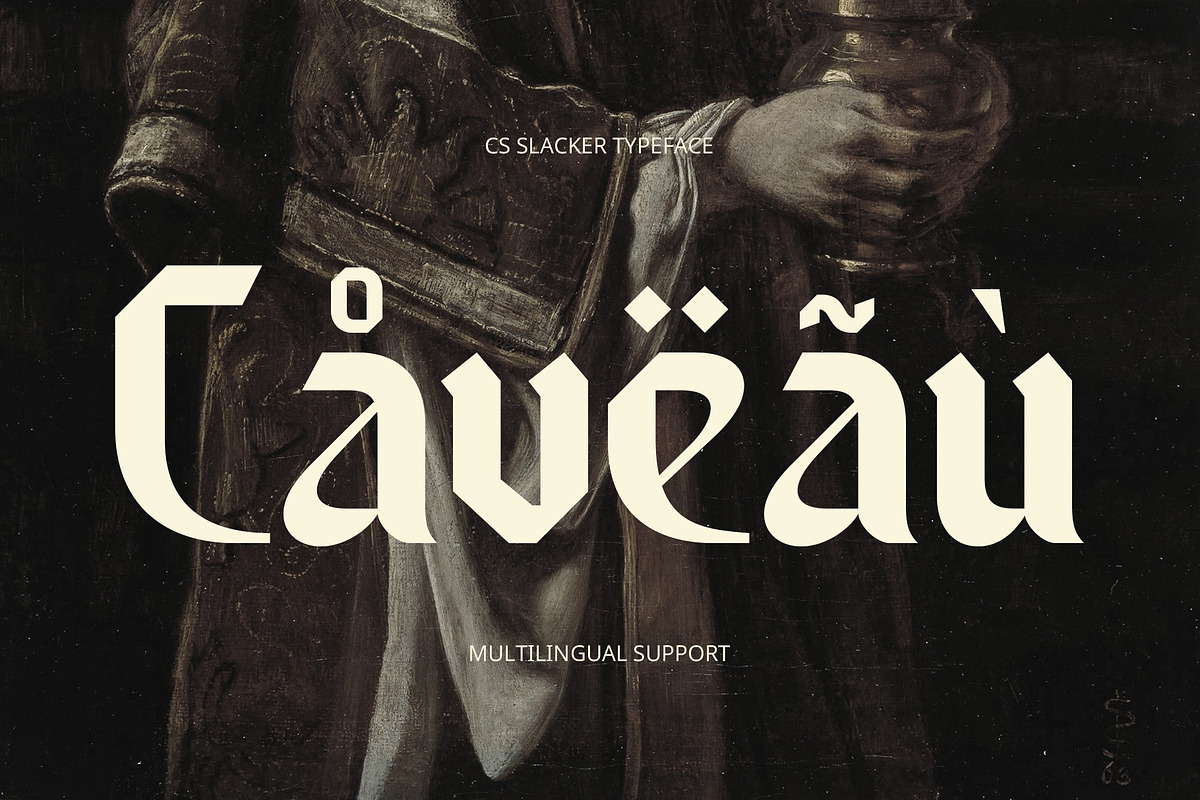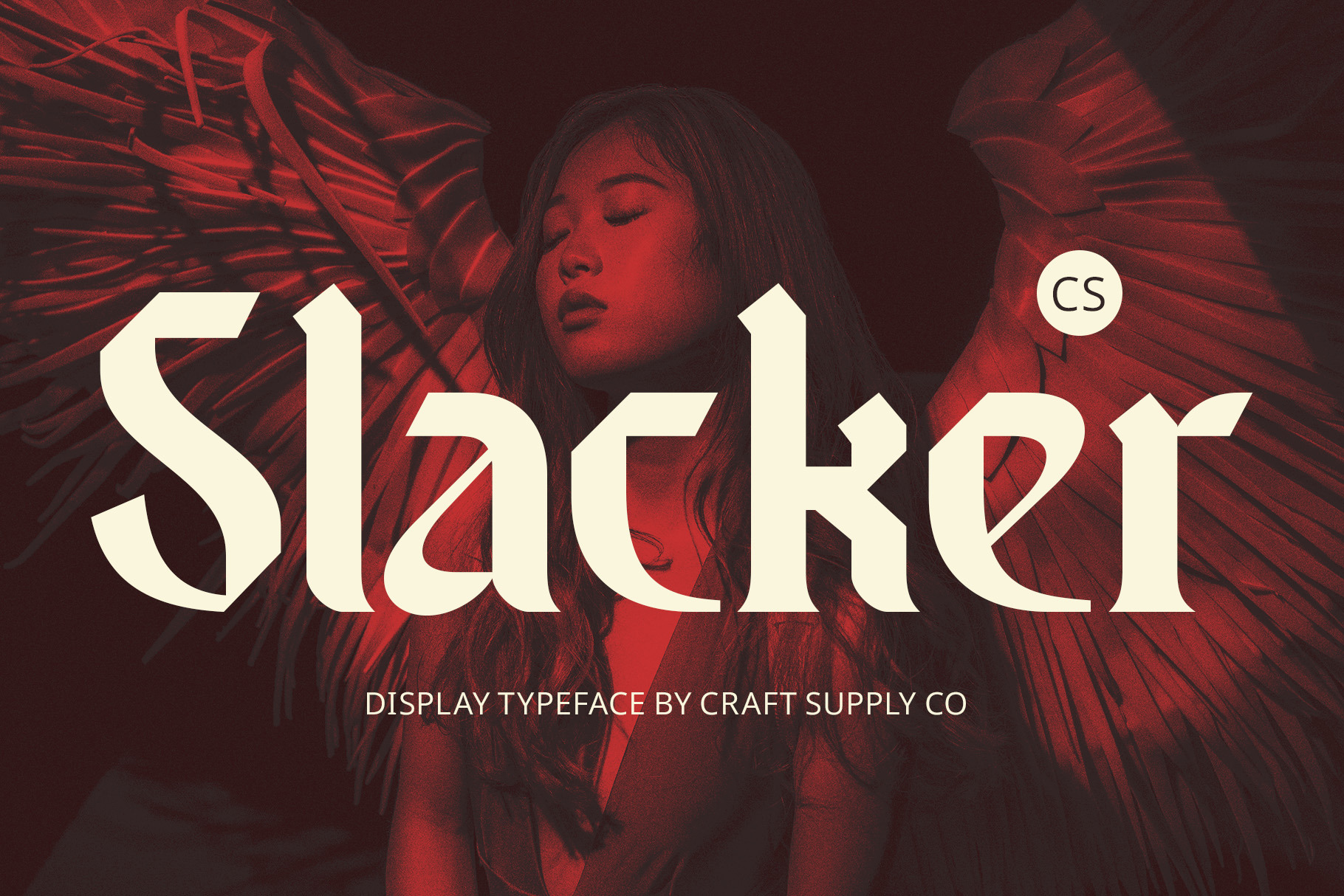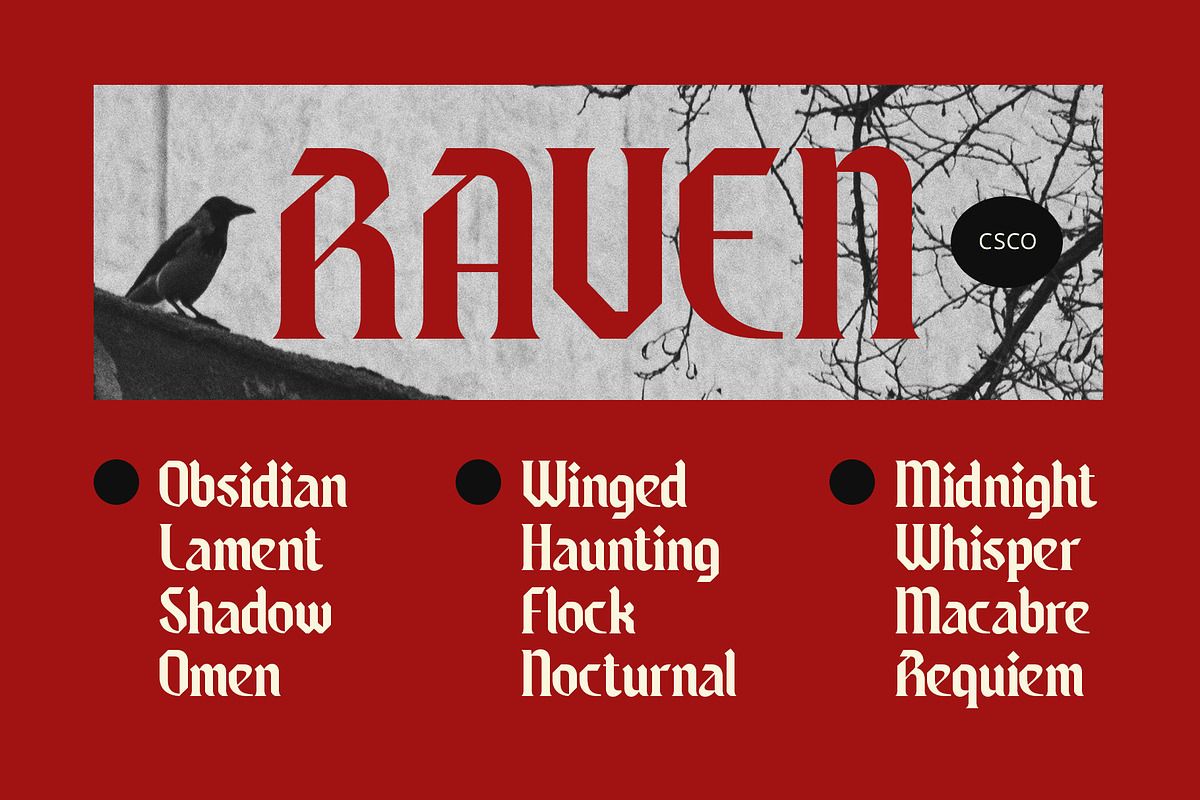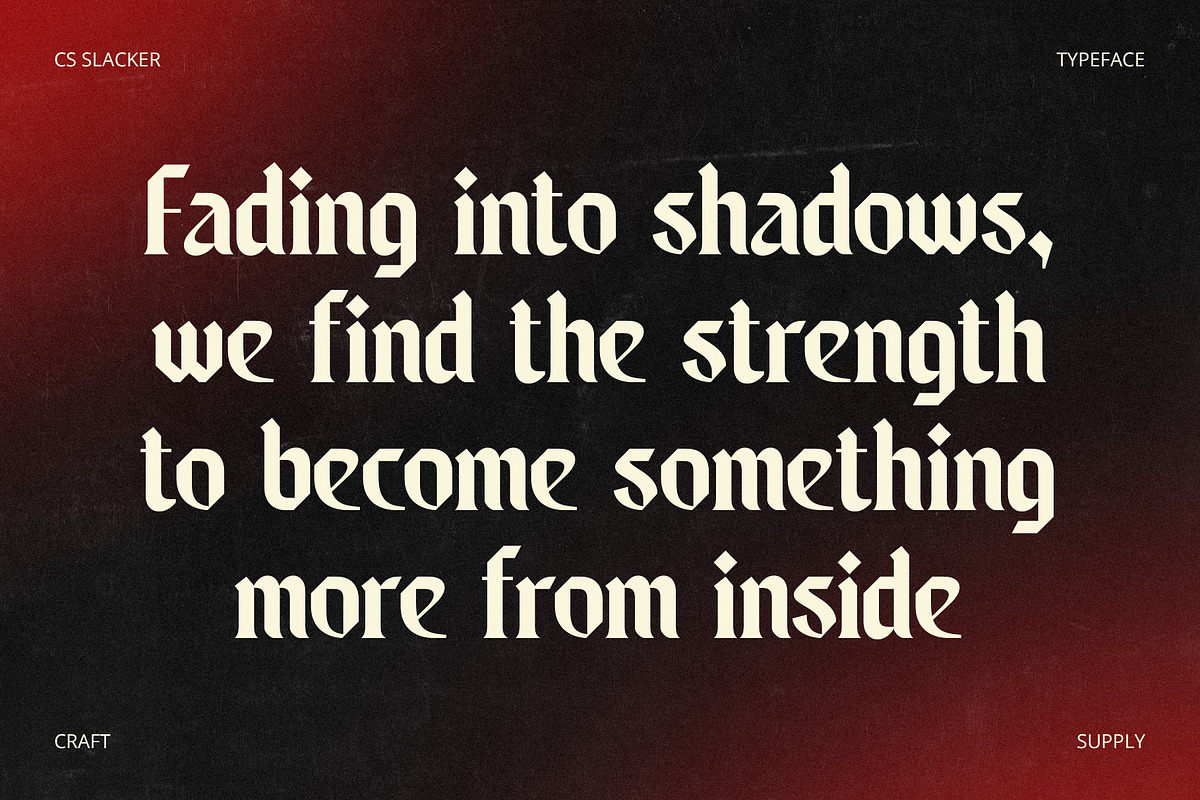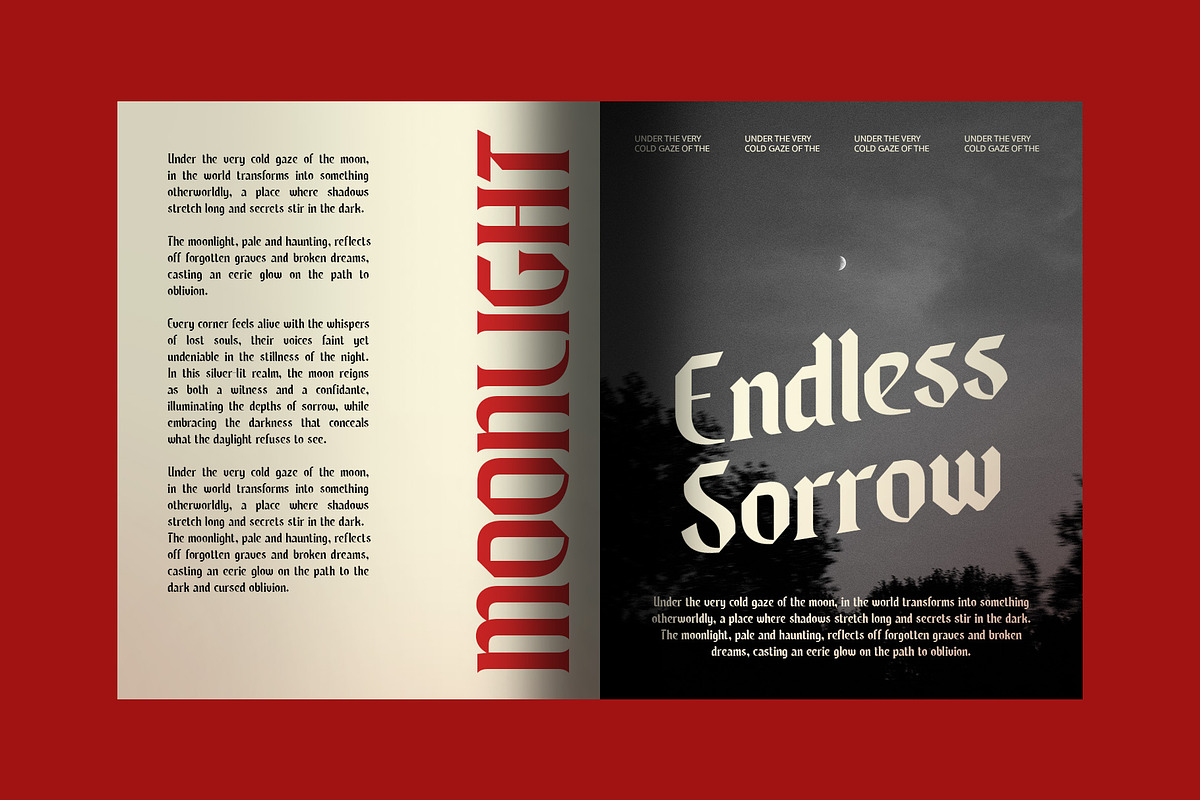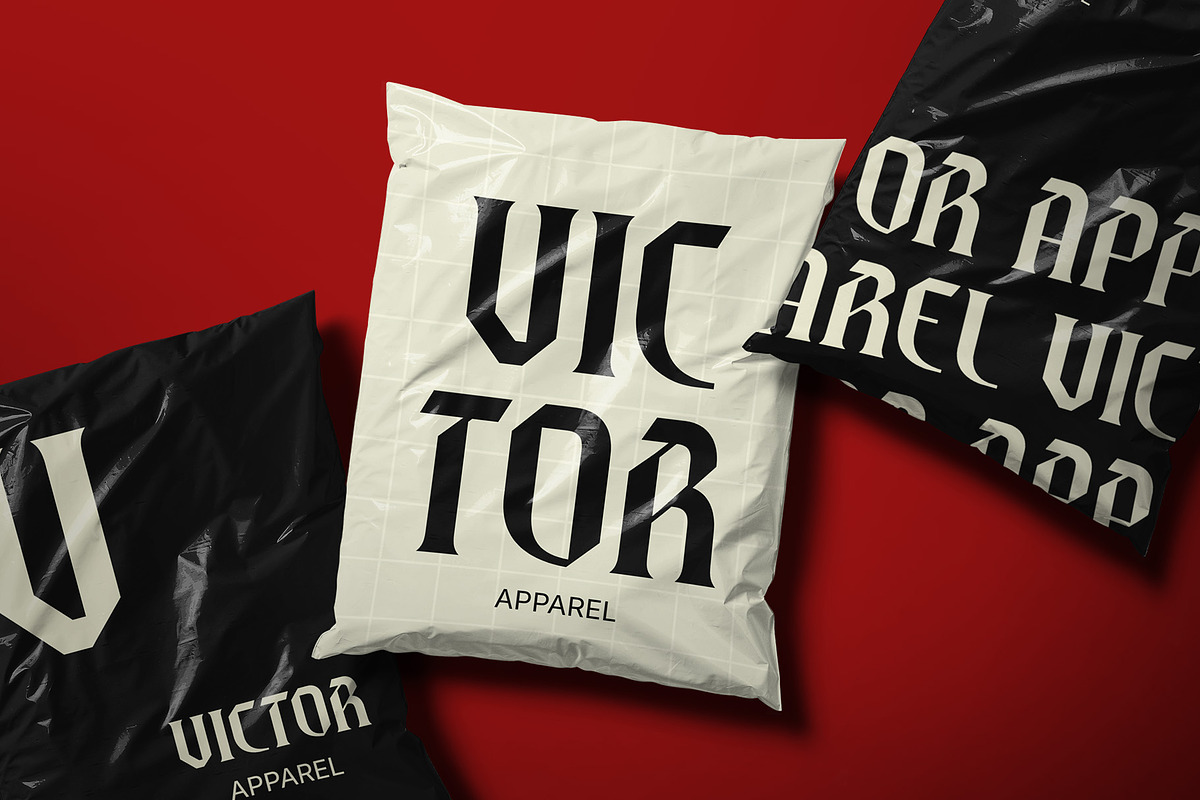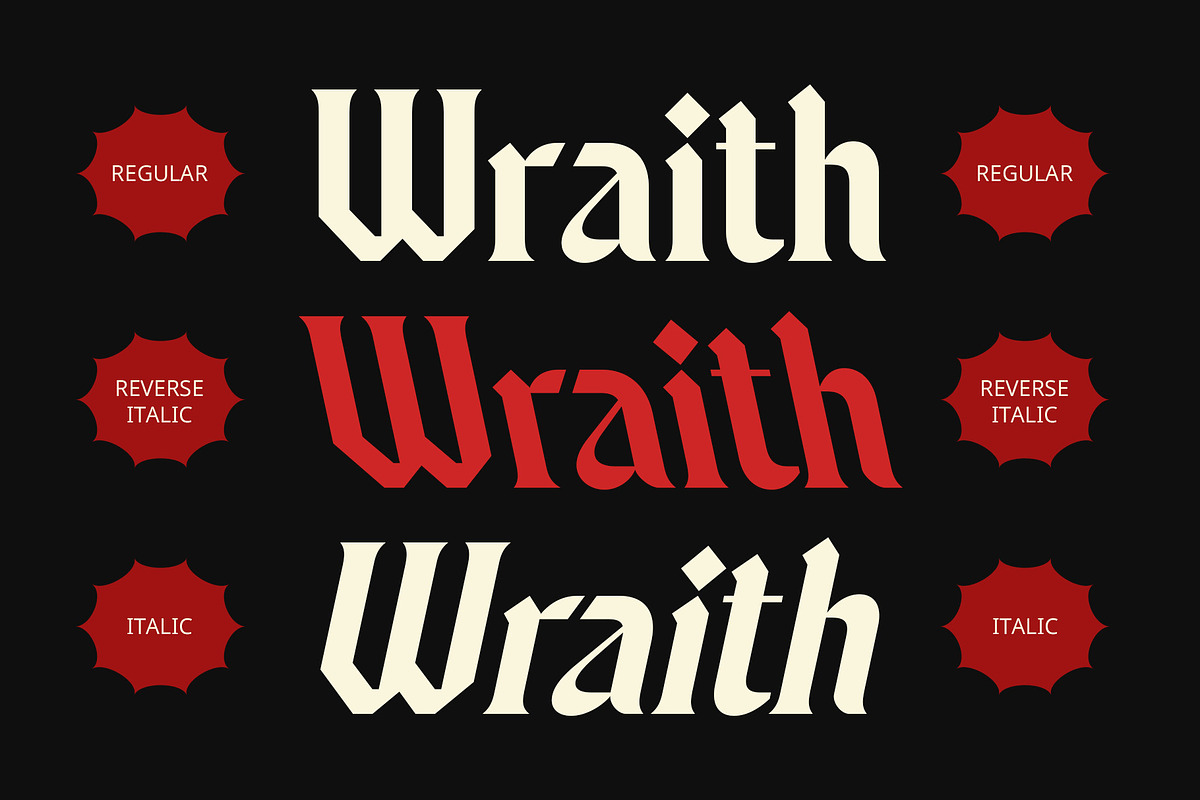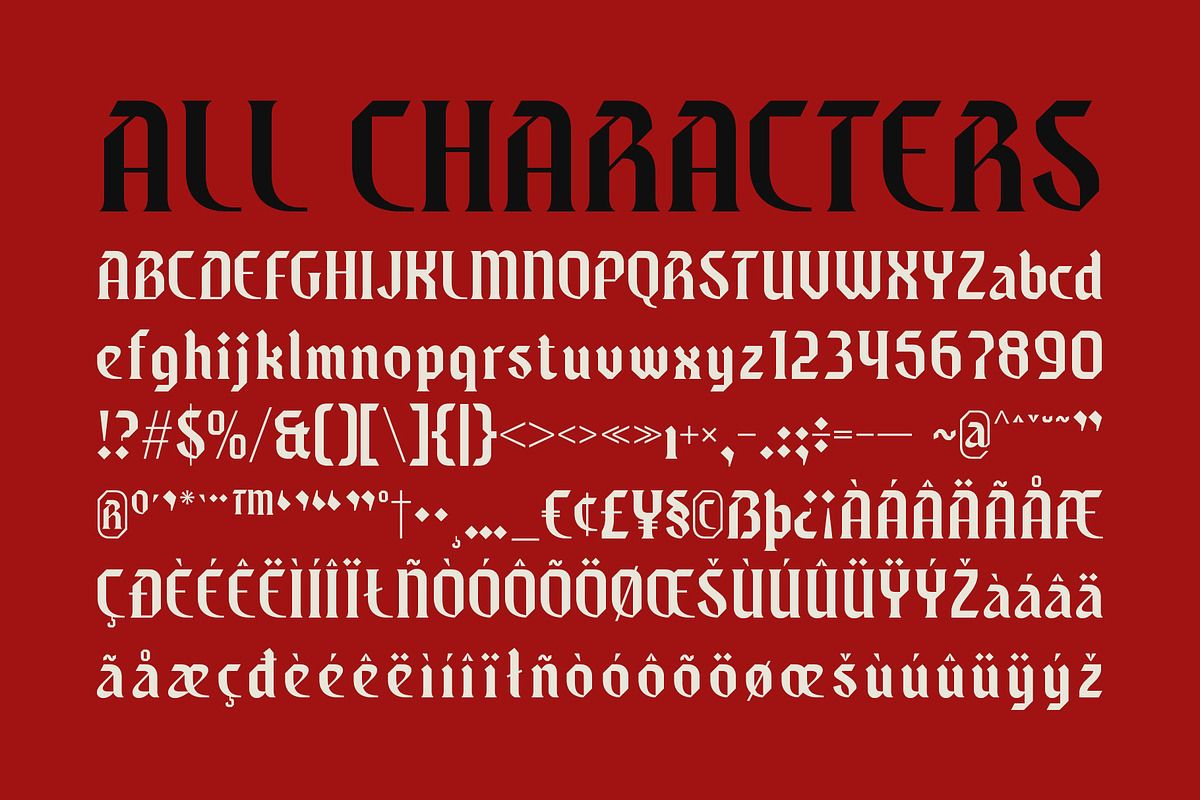
CS Slacker – Blackletter Font
CS Slacker – Modern Blackletter Serif Font
A Bold Fusion of Tradition and Modernity CS Slacker is a modern blackletter serif font that combines the bold, dramatic style of traditional blackletter with a refined, contemporary edge. Retaining the sharp, angular serifs and intricate details that define classic blackletter fonts, this typeface has been adapted for modern use with cleaner, more legible letterforms and a more balanced structure. The result is a font that exudes strength and sophistication, with a distinct touch of elegance.
Strong, Authoritative, and Elegant CS Slacker carries the weight of history while embracing the clarity of modern design. The bold letterforms create an authoritative and commanding presence, while the refined structure ensures legibility and a touch of grace. This unique blend of tradition and innovation makes CS Slacker perfect for designs that require both power and refinement.
Ideal for Impactful and Sophisticated Designs This font is perfect for projects that demand a strong, impactful visual presence, such as luxury branding, event invitations, gothic-inspired artwork, and editorial layouts. Whether used for high-end fashion, ceremonial designs, or visually compelling magazine spreads, CS Slacker brings a distinctive, timeless quality to any project. Its blend of historical depth and modern sophistication makes it a versatile choice for designs that seek to make a bold yet refined statement.
- CS Slacker Regular
- CS Slacker Italic
- CS Slacker Reverse Italic